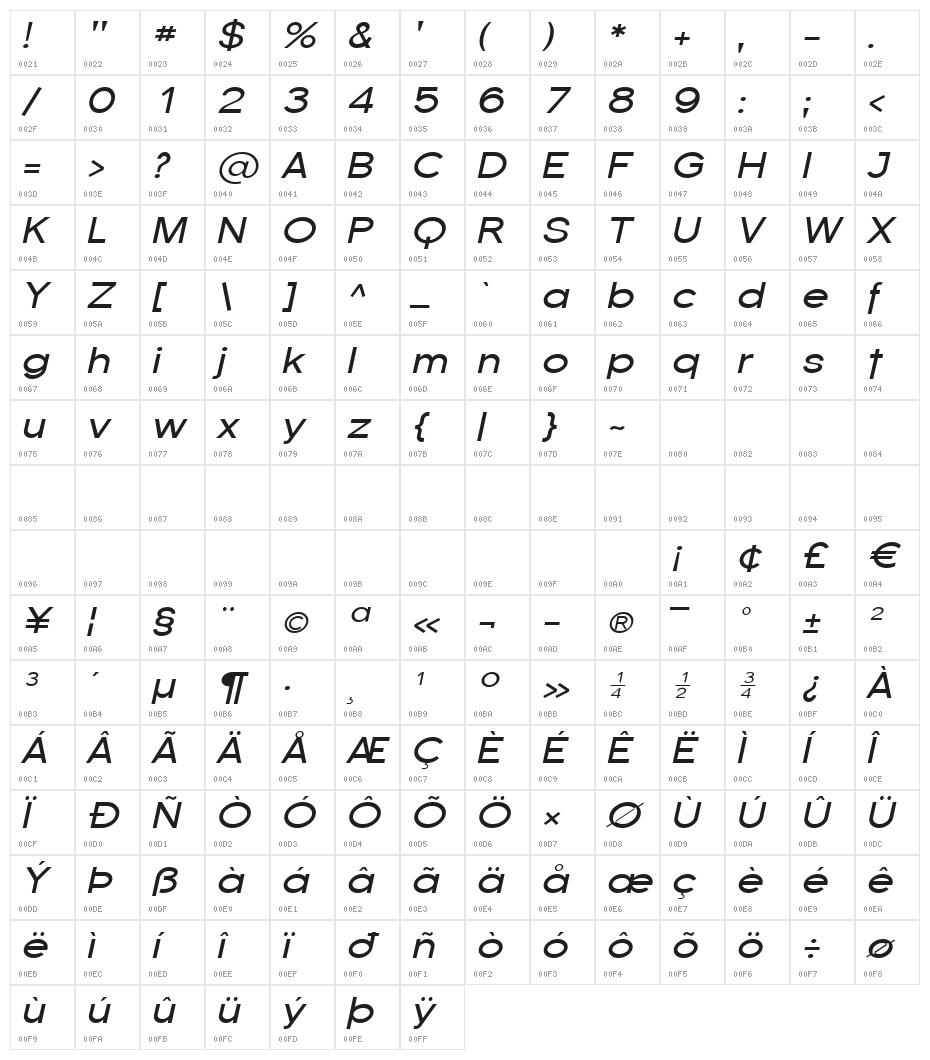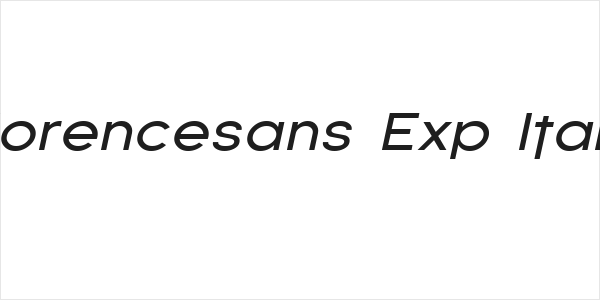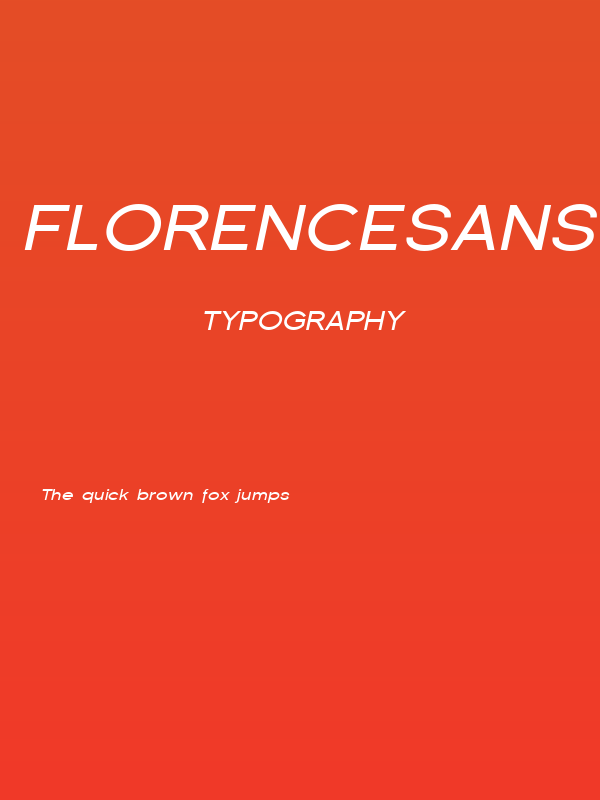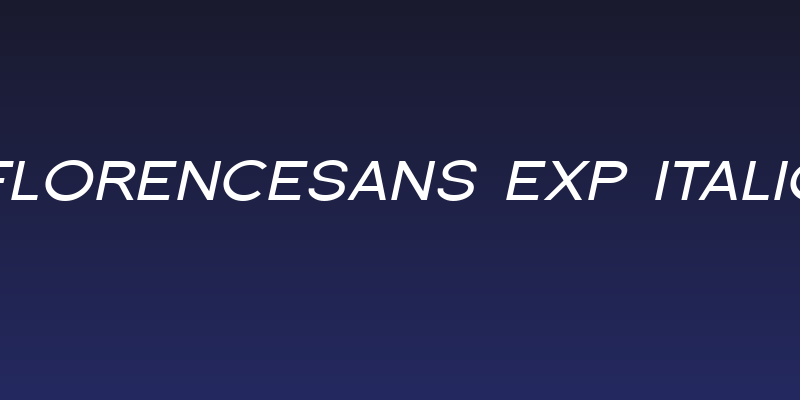
Florencesans Exp Italic Font
Florencesans Exp Italic Description
This font exhibits a sleek and modern sans-serif style with an italic slant, giving it a dynamic and forward-moving appearance. The characters are clean and streamlined, featuring smooth curves and a uniform stroke width that enhances readability. The uppercase and lowercase letters maintain a consistent design, while the numerals and special characters integrate seamlessly into the overall aesthetic. The expanded width of the font adds a sense of openness and space, making it suitable for a variety of design applications.
| Proposed Projects | Ideal for use in contemporary branding, advertising, and digital interfaces where a modern and professional look is desired. |